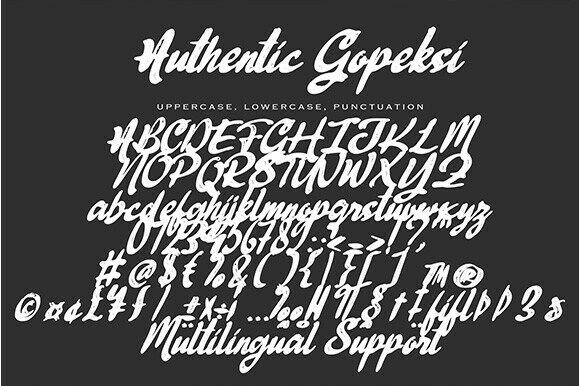
Authentic Gokpesi Font: Transport Your Audience to a Charming Italian Trattoria
Are you looking for a font that can add a touch of rustic charm and vintage elegance to your design projects? Look no further than Authentic Gokpesi, a bold and stylish script font that captures the essence of traditional Italian typography. Designed to infuse your typography with passion and heritage, Authentic Gokpesi is the perfect choice for designers and crafters seeking to create visually stunning and authentic-looking designs.
The Inspiration Behind Authentic Gokpesi
Authentic Gokpesi is inspired by the classic, hand-painted storefront signage found in traditional Italian trattorias. The font features heavy, textured brushstrokes with a dynamic, forward-leaning slant that gives it a unique and captivating appearance. The result is a font that exudes warmth, character, and a deep sense of heritage, making it an ideal choice for culinary branding, traditional pizzeria logos, artisanal product packaging, custom signage, and rustic menu headers.
Key Features of Authentic Gokpesi
So, what sets Authentic Gokpesi apart from other fonts? Here are some of its key features:
- Bold and Stylish: Authentic Gokpesi is a bold and stylish script font that commands attention and makes a statement.
- Textured Brushstrokes: The font features heavy, textured brushstrokes that give it a hand-painted, organic feel.
- Dynamic Slant: The font’s dynamic, forward-leaning slant adds to its sense of energy and movement.
- Vintage Charm: Authentic Gokpesi is designed to evoke the nostalgia and romance of traditional Italian typography.
Uses for Authentic Gokpesi
Authentic Gokpesi is a versatile font that can be used in a variety of design projects, including:
- Culinary Branding: Use Authentic Gokpesi to create eye-catching logos and branding materials for restaurants, cafes, and food-related businesses.
- Traditional Pizzeria Logos: The font’s vintage charm and bold style make it perfect for traditional pizzeria logos and signage.
- Artisanal Product Packaging: Add a touch of rustic elegance to your product packaging with Authentic Gokpesi.
- Custom Signage: Use the font to create custom signage that reflects the unique character of your business or brand.
- Rustic Menu Headers: Add a touch of warmth and heritage to your menu headers with Authentic Gokpesi.
Why Choose Authentic Gokpesi?
So, why should you choose Authentic Gokpesi for your design projects? Here are just a few reasons:
- Unique and Authentic: Authentic Gokpesi is a unique and authentic font that will set your designs apart from the crowd.
- High-Quality Design: The font is designed to high standards, ensuring that it looks great in any design project.
In conclusion, Authentic Gokpesi is a bold and stylish script font that is perfect for designers and crafters seeking to add a touch of rustic charm and vintage elegance to their design projects. With its textured brushstrokes, dynamic slant, and vintage charm, Authentic Gokpesi is sure to transport your audience to a charming Italian trattoria. So why wait? Download Authentic Gokpesi today and start creating visually stunning and authentic-looking designs that will leave a lasting impression on your audience.